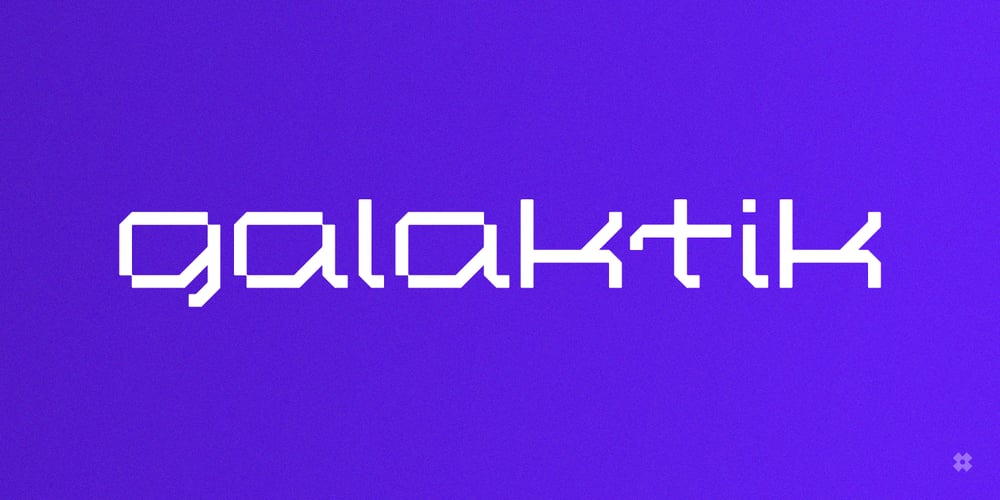
Galaktik Font Family was designed by Ohsay Ehx and published by ExFour. Galaktik contains 1 styles and family package options. Galaktik is a fresh embodiment of the monospace font. Born out of creative ideation, it attempts to pay homage to a long history of display fonts while exhibiting contemporary, playful accents. This balance of geometric shapes and creative expression allows Galaktik to feel both familiar and yet unique.Features Numerals Punctuations Special Characters Galaktik’s freshness fits modern typographic schemes, futuristic logos, and even command-line consoles. The limits are boundless.Thank you for your purchase! Feel free to reach out for any issues or if need any assistance.